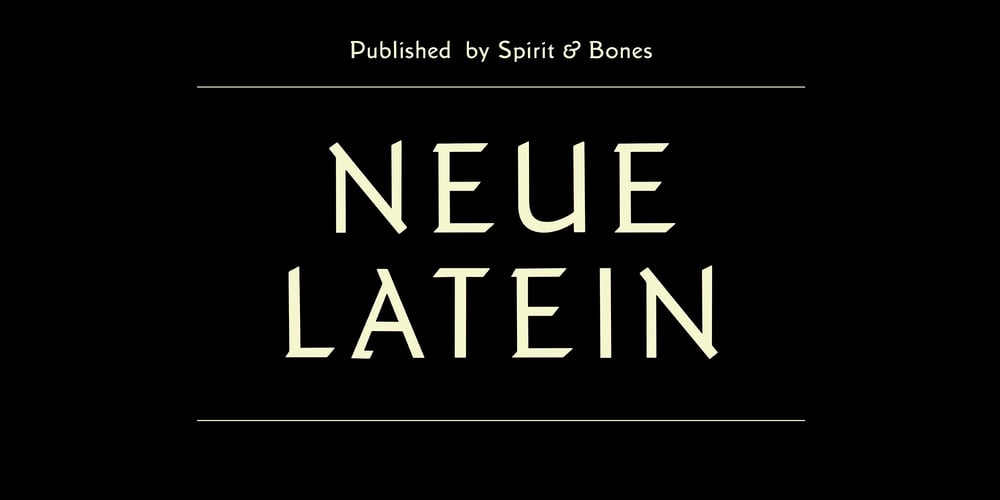
Neue Latein Font Family was designed by Lena Schmidt and published by Spirit & Bones. Neue Latein contains 7 styles and family package options. This sans serif font carries the flair and mood our Schneidler Latein font family. The calligraphic appearance and the human sound are evident thanks to the preservation of some significant broad edged pen elements. The forms are reduced to the subtle level where they are simplified, but the essence still remains. The expressive and artistic expression of the Schneidler Latein continues to work like a background melody. Together they build a superfamily that works perfectly in combination with each other. More weights will follow soon.